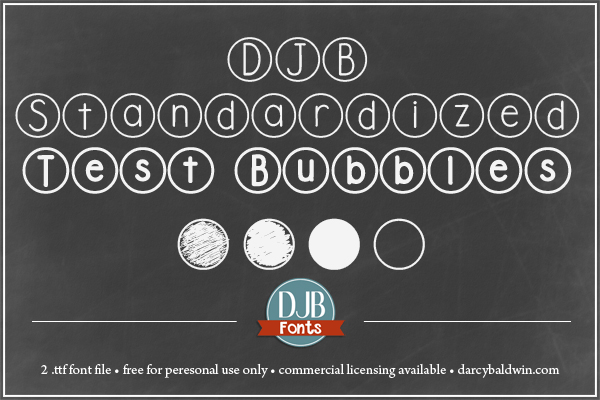
Preview and download DJB Standardized Test Font. Created by Darcy Baldwin in Basic Various styles with Free for personal use license.
This font is free for personal use only. Standardized Test Bubbles for making fun text anywhere, but also mimicking a standardized text in your content, media, marketing and more. It comes in a regular and bold style. There is an oval version here: http://www.dafont.com/djb-standardized-test-oval.font Please purchase a commercial use license at: http://darcybaldwin.com/commercial-use/ Follow on Facebook: https://www.facebook.com/DarcyBaldwinFontography |